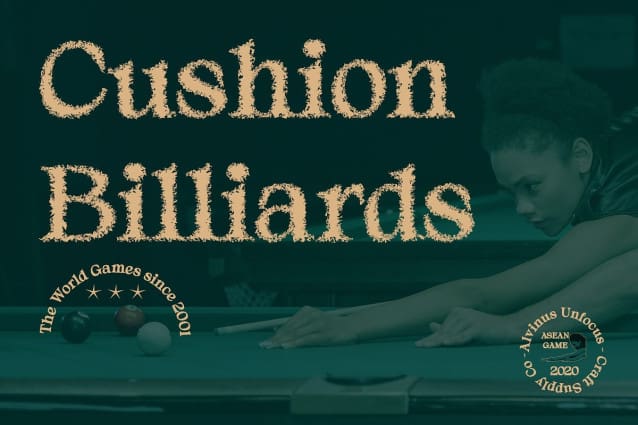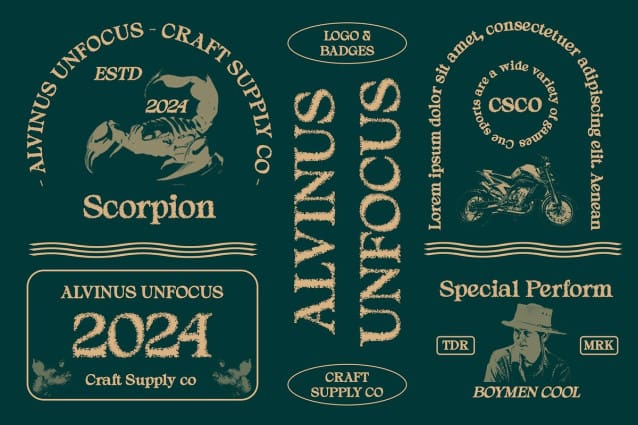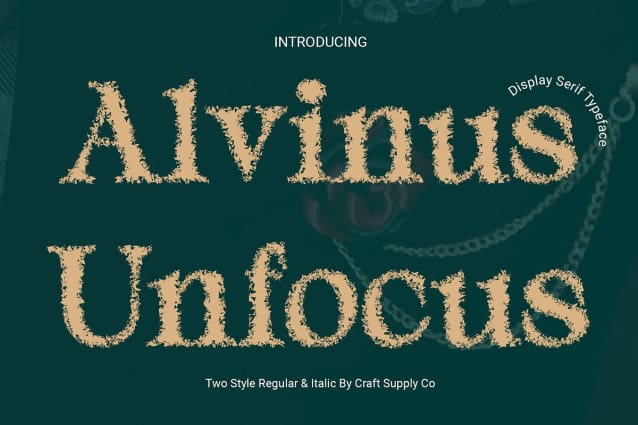
Alvinus Unfocus Font
Alvinus Unfocus Font: Redefining Display Typography. Distinctive Unfocus Effect Alvinus Unfocus introduces a unique display serif font with an unfocus effect, creating a subtle blur around the edges of each character. This distinctive feature adds a touch of intrigue and creativity to the font.
Serif Elegance with a Twist Combining classic serif aesthetics with the innovative unfocus effect, This font offers a fresh take on traditional display typography. Its blend of elegance and modernity makes it suitable for a wide range of display needs.
Perfect for Eye-Catching Displays Designed specifically for display purposes, This font excels in grabbing attention and making a statement. Whether used in headlines, banners, or posters, its unfocus effect ensures that your message stands out effectively.
Versatile Application Beyond its unique appearance, This font is versatile in its application. From branding projects to editorial design and digital displays, this font adds a touch of sophistication and creativity to any design.
Uniquely Captivating This font redefines display typography with its distinctive unfocus effect, blending serif elegance with modern innovation. Whether you’re looking to add creativity to your designs or make a bold statement, this font is sure to leave a lasting impression. Experience the captivating allure of This font and elevate your display projects to new heights.